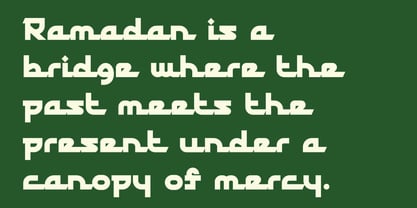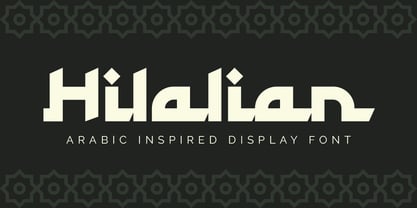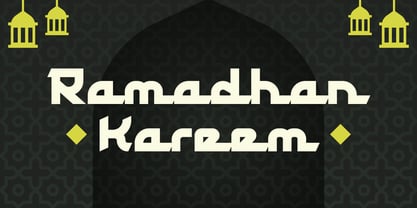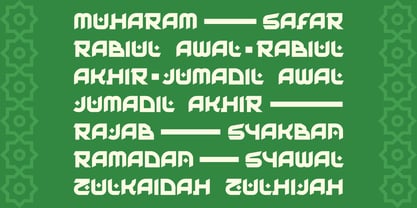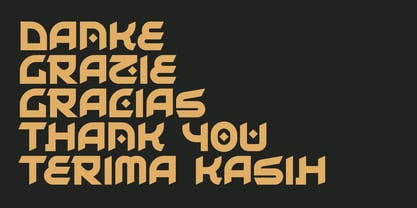
Hilalian
by Habitype
The Hilalian Font Family was designed by Fahrul Saputra and published by Habitype. Hilalian contains 1 styles. More about this family
Hilalian is an Arabic-inspired display font that seamlessly blends cultural heritage with contemporary minimalism. Kufic-style geometric weight and rhythmic presence make it an exceptional choice for luxury branding, spiritual or cultural event posters, and high-end editorial designs.
By marrying sharp, angular strokes with sweeping fluid terminals and diamond-shaped diacritic accents, the typeface delivers a sophisticated, worldly character engineered specifically for high-impact headlines and premium visual identities.
Designers: Fahrul Saputra
Foundry: Habitype